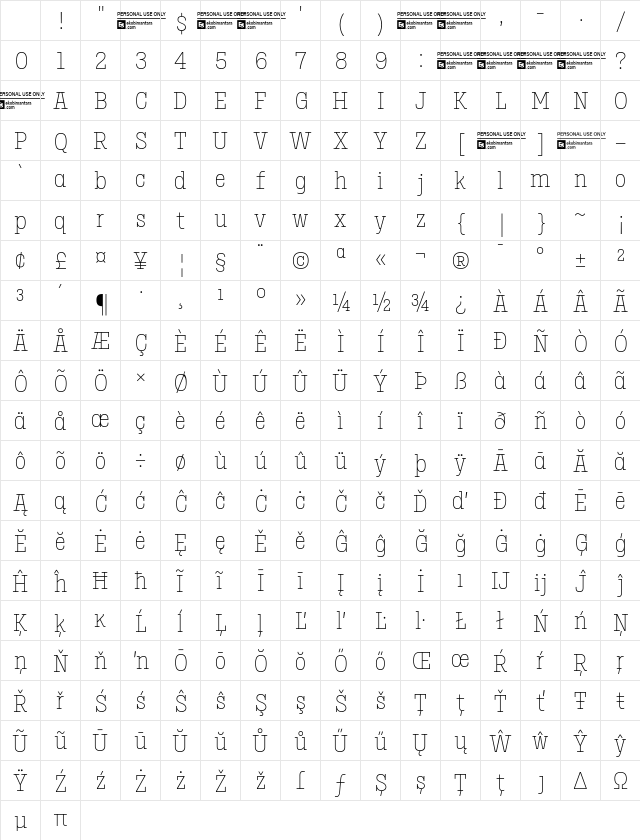
Complete Birdwood Trial Thin Regular glyph index. Displaying only characters natively supported by Birdwood Trial Thin Regular font.
Birdwood Trial Thin echoes the hand-painted signage and woodblock typography of the American frontier, with a warm, rugged personality. Its slender proportions lend an understated elegance to any composition.
Font Pairing: Combine Birdwood Trial Thin with a simple slab or neutral sans - period-accurate companions reinforce the vintage feel without competing for attention.
Pro Tip: Use Birdwood Trial Thin for short, impactful bursts of text - it shines in poster headlines and product names rather than extended copy.